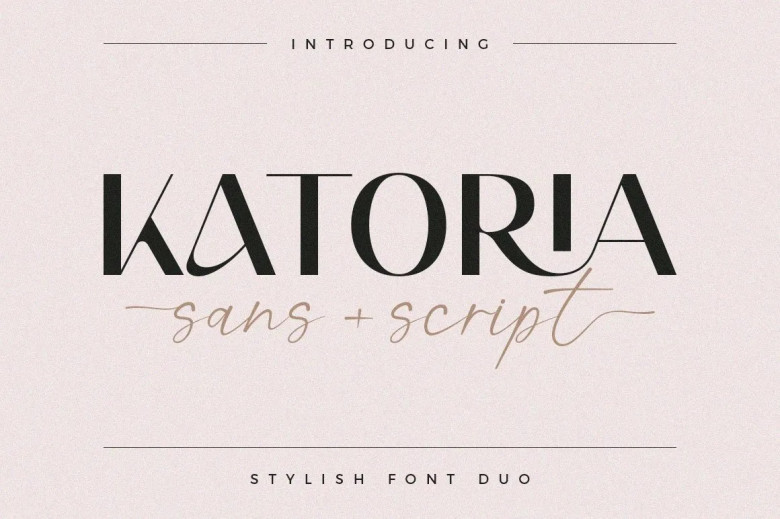
Katoria Font
Do you need some elegance for your font but still have your own style? Introducing Katoria Luxury font duo perfectly combines modern style typeface. Katoria is Uppercase and it will make your design on top every project needs to be fresh, relaxing, and easy to use.
All the letters have a beautiful combination of ligatures along with an alternative. you can change them as needed and see how many variations you get. Perfect for logos, magazines, social media, and other display purposes. This font is also PUA Nerf’s Encoded.
Katoria Font Duo